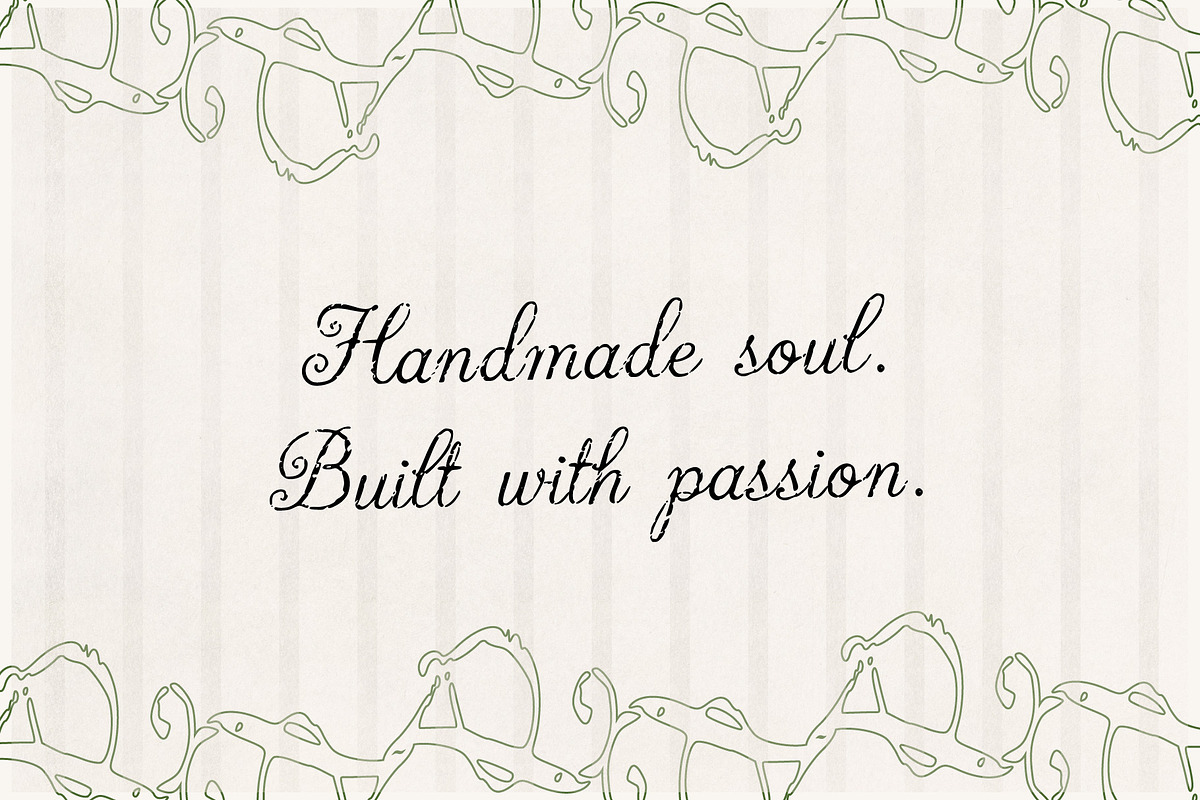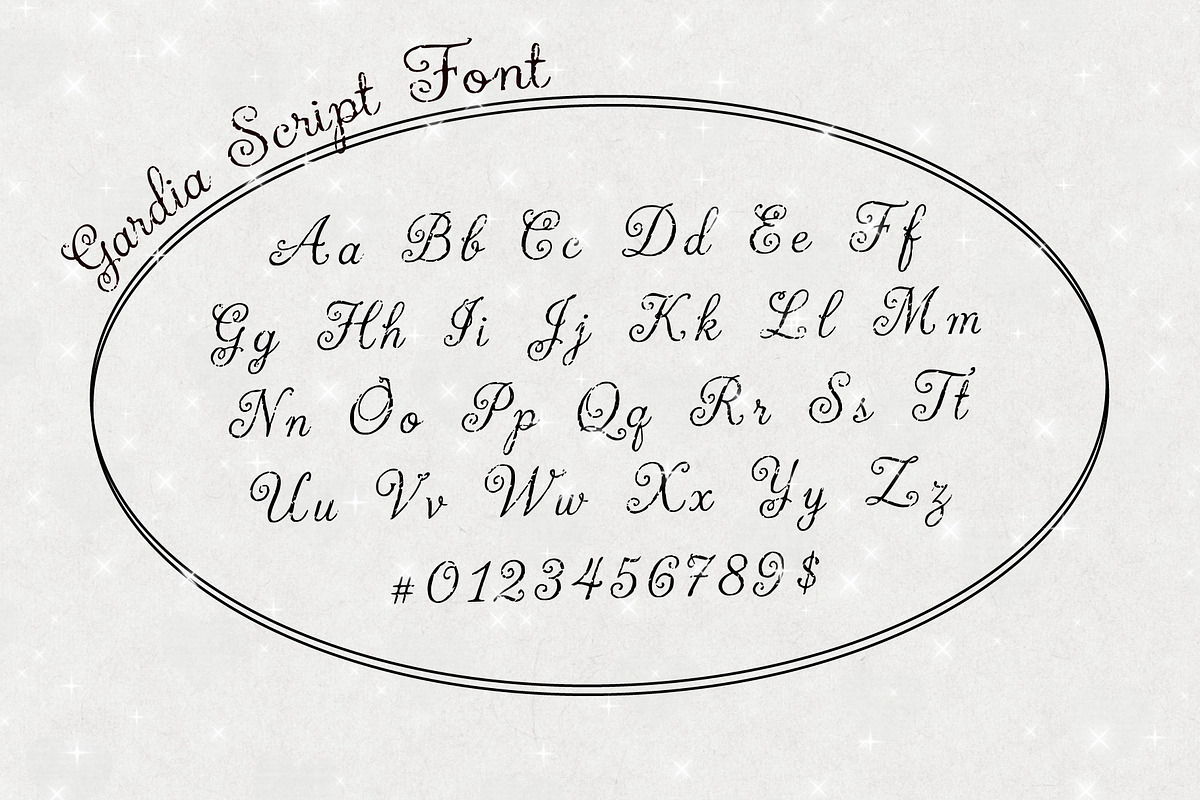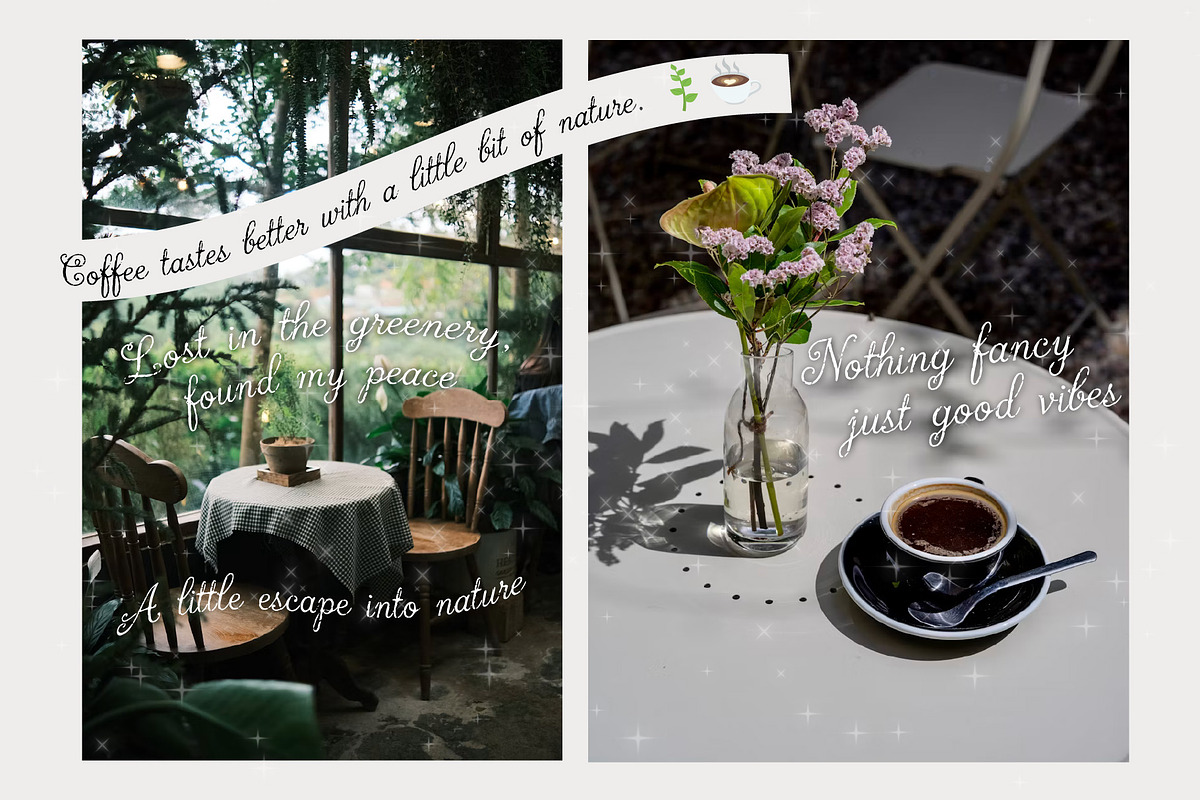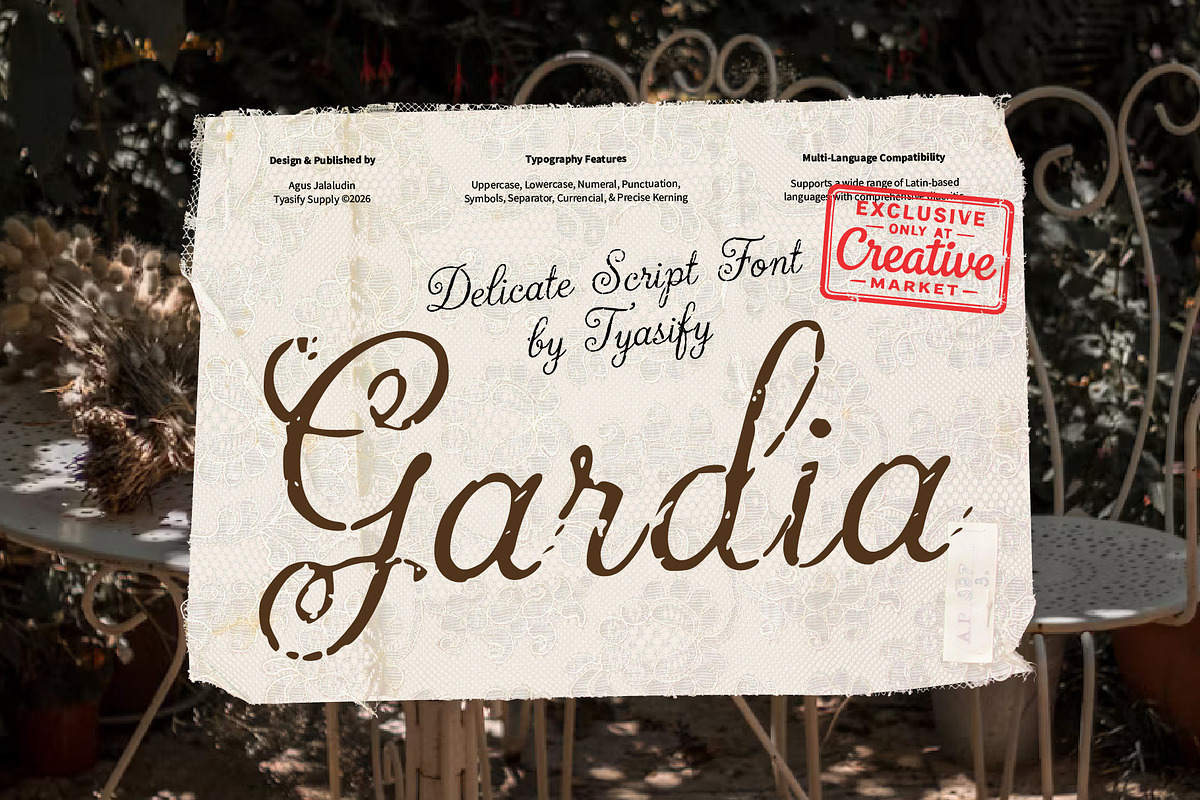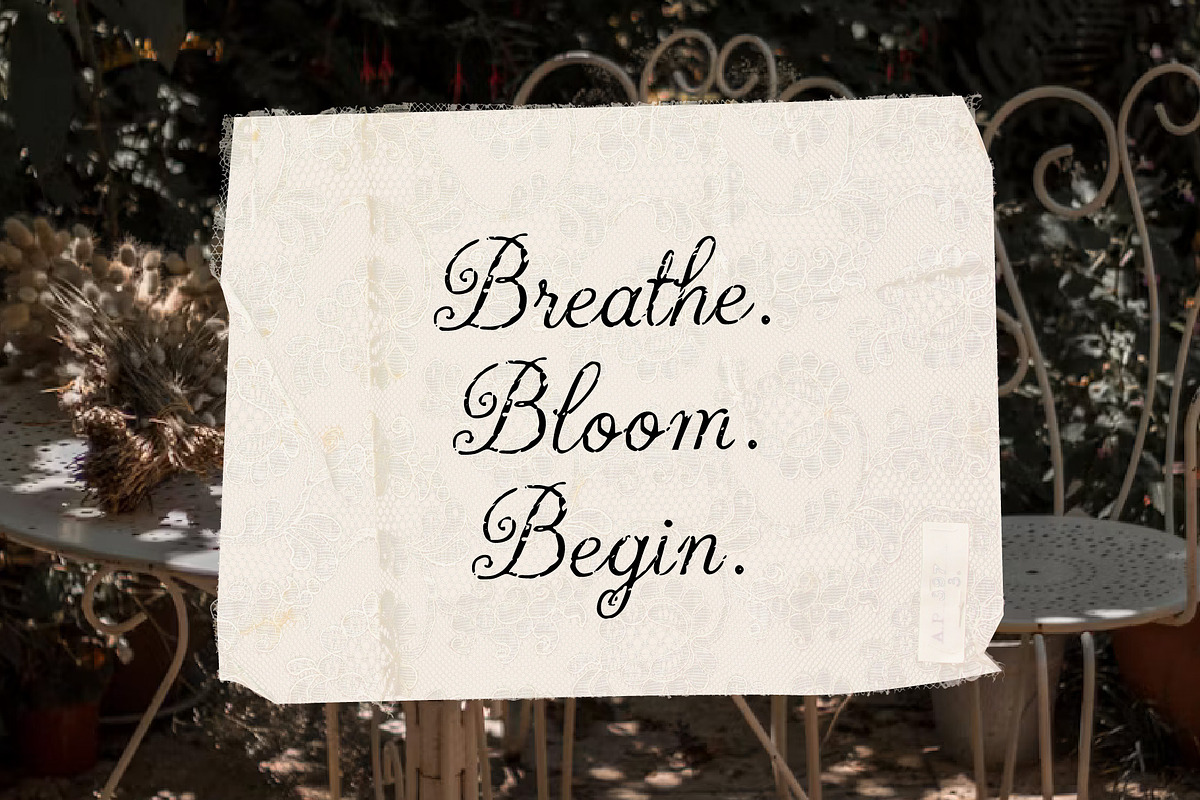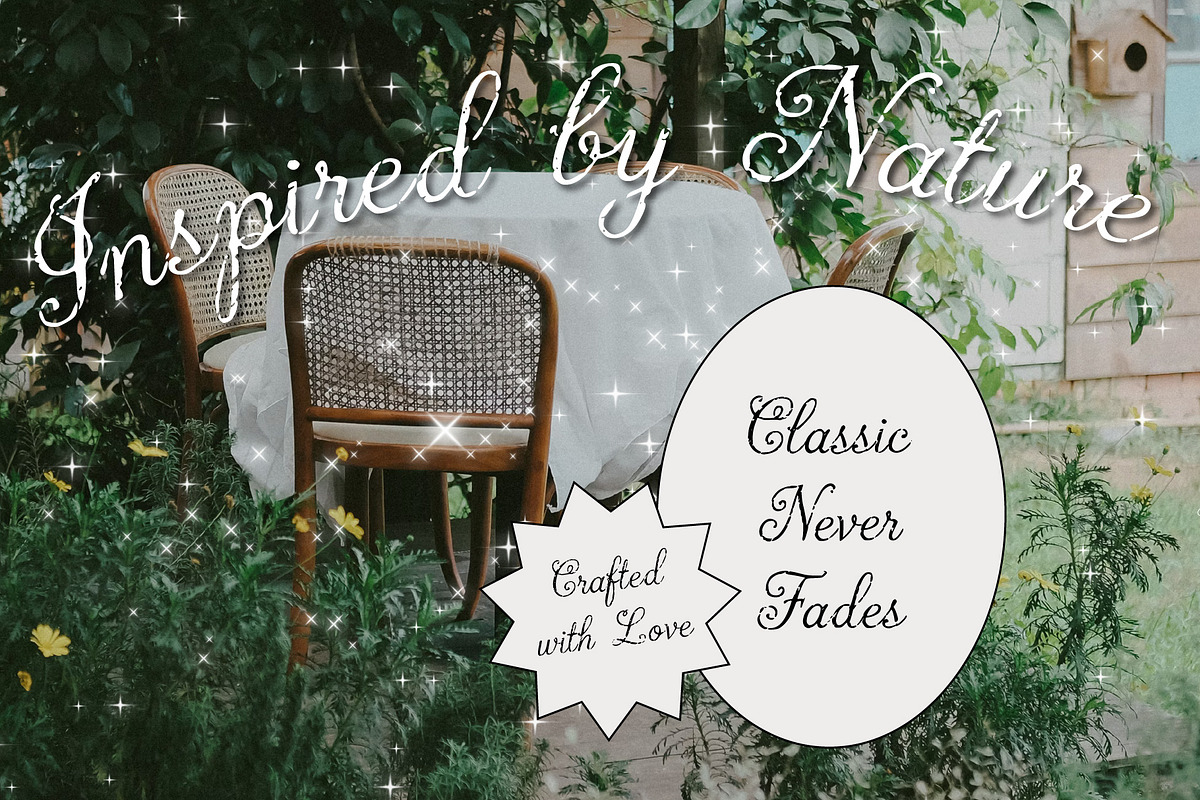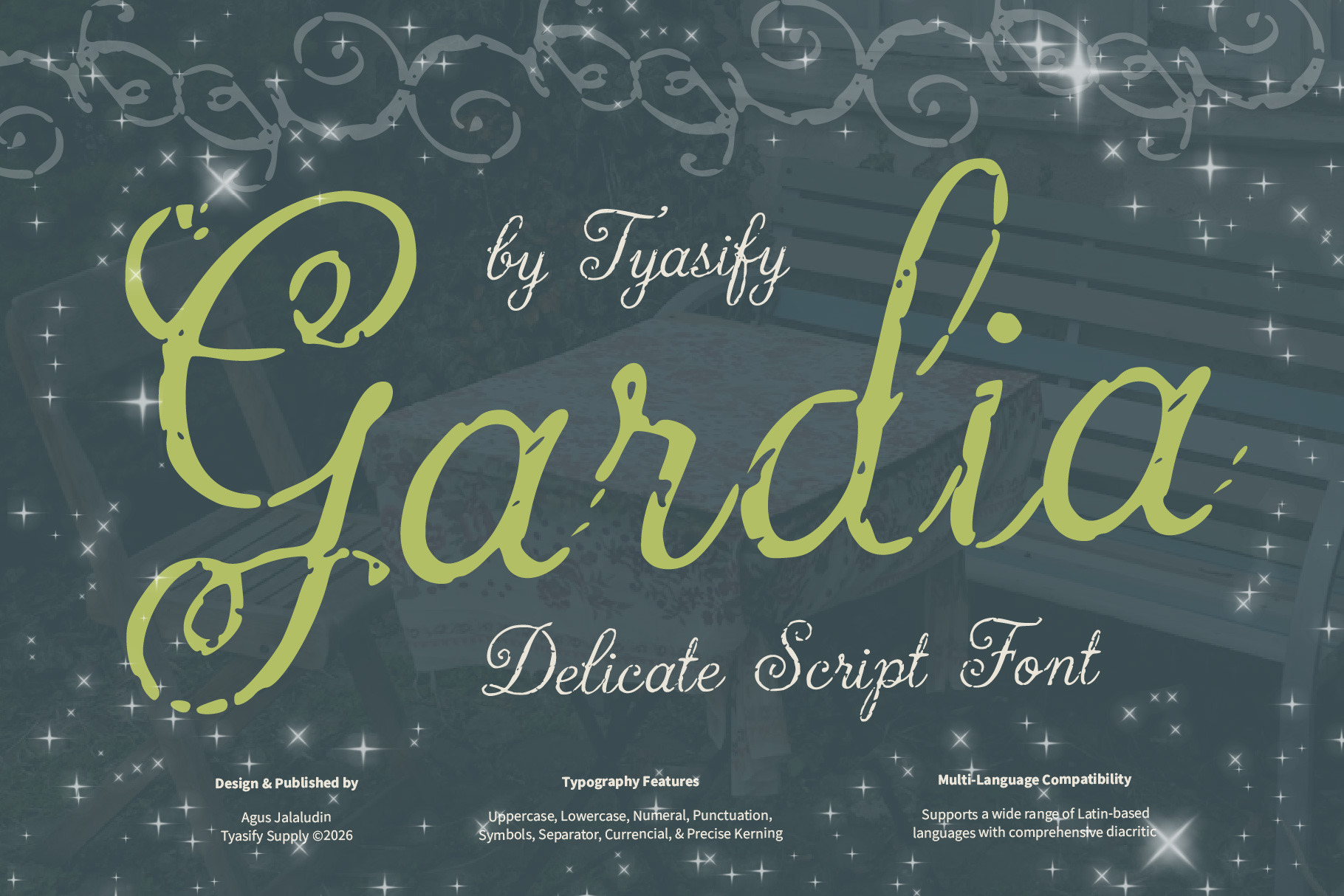
Gardia: Delicate Vintage Script Font
Gardia is a delicate, nature-inspired script font with graceful curves, a subtle rustic texture, and a classic handwritten rhythm. Built with a true handmade soul, this typeface is exclusively available on Creative Market.
Use it for botanical branding, coffee shop identities, rustic wedding invitations, organic packaging, vintage labels, inspiring social media quotes, stationery, and peaceful decorative typography.
The uppercase letters are elegant and expressive, while the lowercase keeps the text beautifully readable with a warm, natural flow. Gardia works perfectly for soothing short phrases, aesthetic menus, titles, classic headers, and nostalgic display text.